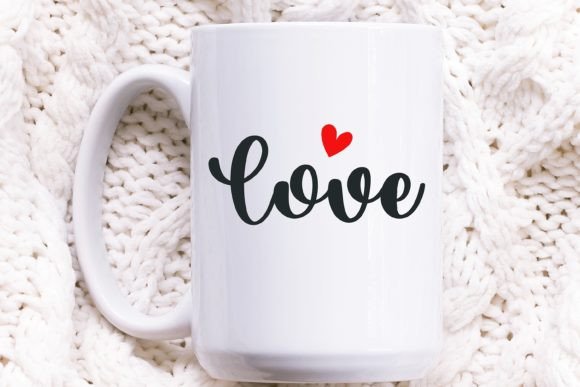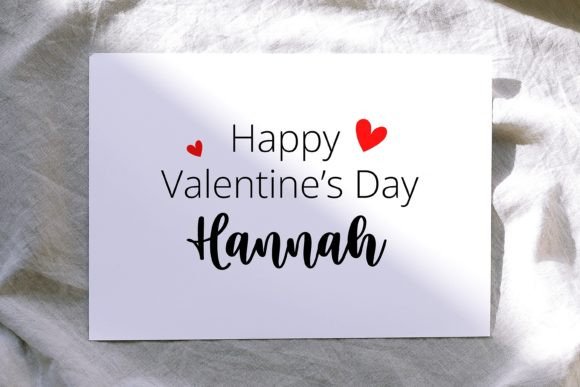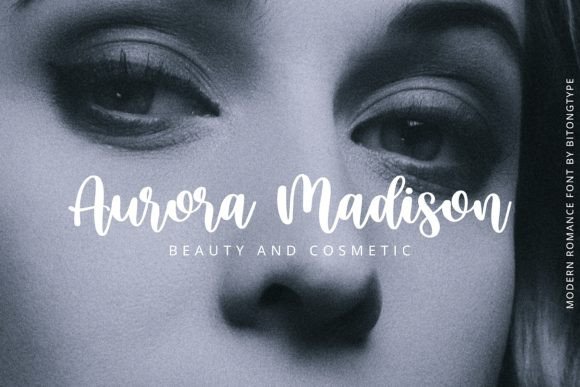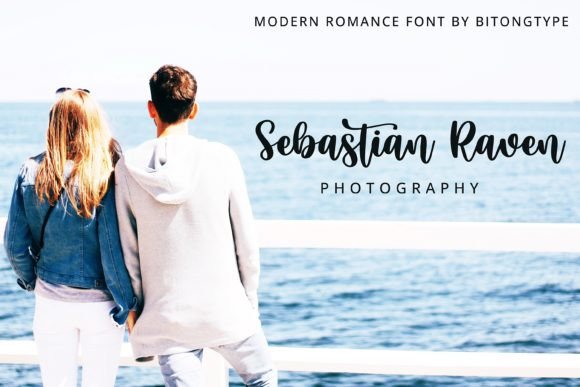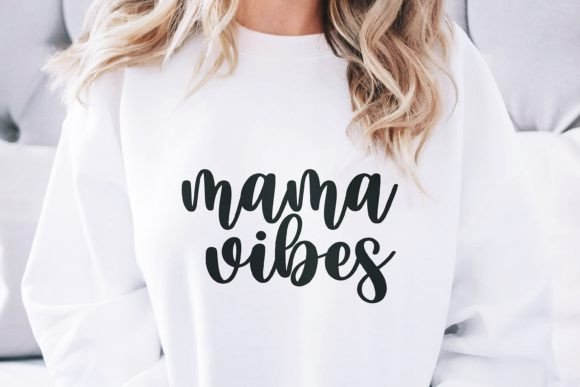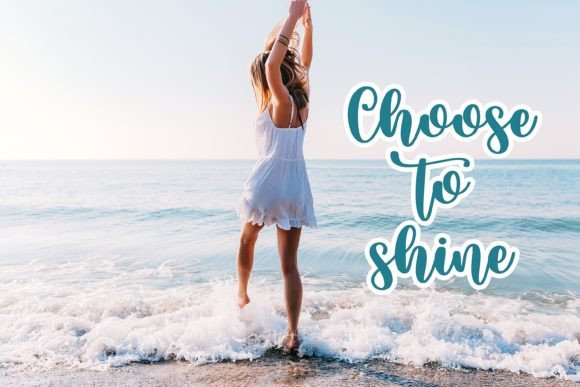
Introduction to Modern Romance Font
As I was brainstorming ideas for a new chalkboard quote design, I stumbled upon a font that instantly caught my eye – the Modern Romance Font. Its friendly and informal handwritten style perfectly captured the essence of a carefree summer evening, and I knew I had to incorporate it into my project. I spent hours searching for the perfect design resource, and finally, I found it – a high-quality, free download of the Modern Romance Font that would elevate my creative project to the next level.
What I love about the Modern Romance Font is its authentic look and feel, which adds a personal and realistic touch to any design. With its transparent background, it’s perfect for creating a sense of depth and dimension in your designs. As a designer, I can appreciate the value of having access to a versatile and high-quality font like the Modern Romance Font, which can be used for a wide range of creative projects, from teaching materials to decorative quotes.
Key Features of Modern Romance Font
- High-quality design resource for creative projects, perfect for romantic and elegant themes.
- Transparent background option allows for easy customization and integration with different design elements.
- Unique, cursive script style with a touch of whimsy and romance, making it ideal for wedding invitations, love letters, and other sentimental projects.
- Designed to be versatile and stylish, suitable for both digital and print applications, including websites, social media, and advertising materials.
Honest Review: Modern Romance Font
I recently had the chance to work with the Modern Romance Font, and I must say, it’s a great addition to any design resource library. The font is perfect for a creative project that needs a touch of elegance and sophistication.
- ✨ High-quality design: The Modern Romance Font is well-crafted and has a smooth, refined look that’s perfect for a wide range of applications.
- ✨ Versatility: The font works well with a transparent background, allowing for a beautiful, subtle look that adds depth to any design.
- ⚠️ Limited character set: The Modern Romance Font has a relatively small character set, which may limit its use for longer blocks of text.
- ⚠️ Not ideal for bold text: While the font is beautiful, it’s not the best choice for bold or headline text, as it can become overwhelming.
Overall, I’m impressed with the Modern Romance Font, and I think it’s a great addition to any design library. While it may have some limitations, it’s perfect for a creative project that needs a touch of elegance and sophistication.
To get the most out of the Modern Romance Font, try using it in combination with other design elements, such as images and graphics. You can also experiment with different font sizes and styles to create a unique and eye-catching design. Additionally, consider using the font on a transparent background to add a touch of elegance to your design.
The Modern Romance Font is perfect for a variety of creative projects, including wedding invitations, greeting cards, and social media graphics. Its high-quality design and romantic feel make it an ideal choice for any project that requires a touch of elegance and sophistication.
Yes, the Modern Romance Font is designed to work well on transparent backgrounds. The font’s high-quality design and smooth lines ensure that it looks great even when placed over a transparent background.